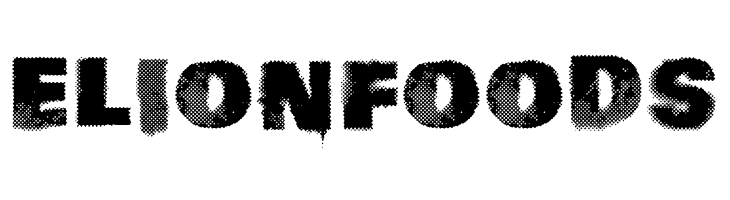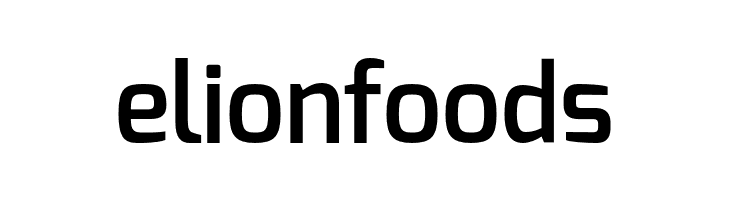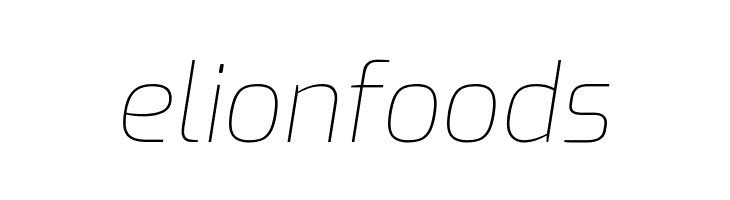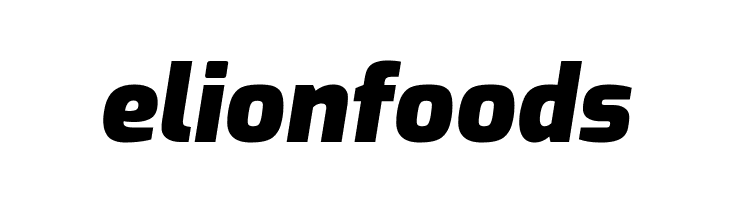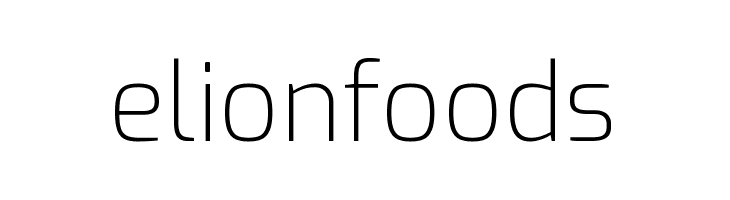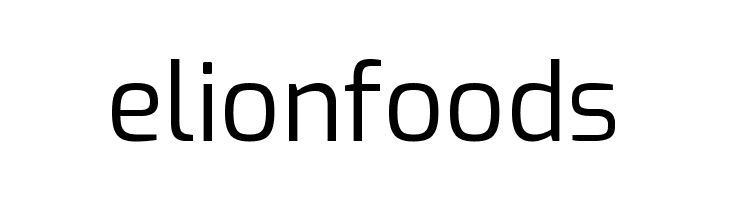
A bold, distressed font with a grunge aesthetic, perfect for edgy designs.
A bold, distressed font with a cracked texture for a rebellious look.
A mosaic-inspired decorative font with a textured, artistic appearance.
A bold, distressed font with a halftone texture for impactful designs.
A modern, geometric font with clean lines and a bold presence.
A sleek, modern italic font with thin, elongated letterforms and a geometric structure.
A bold, italic sans-serif font with a dynamic and modern style.
A modern, geometric font with clean lines and a futuristic feel.